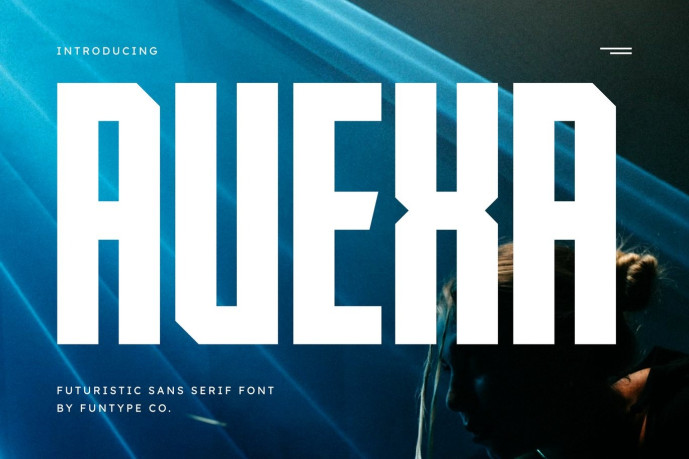
Avexa – Modern Futuristic Sans Serif Font
Avexa is a bold, high-impact, and modern futuristic condensed sans serif font, engineered to bring an authoritative structural presence, rigid geometric weight, and unique cybernetic aesthetic to contemporary display layouts. Featuring a tall vertical profile, powerful block structures, and distinct octagonal chamfered cuts, Avexa introduces a premium sci-fi editorial, high-end automotive, and prominent digital media identity designed to claim absolute visual focus.
This font family is the ultimate choice for creative directors, digital gaming publishers, and agency brand designers looking to implement a robust, space-efficient typography identity for major text hierarchies. Whether you are developing bold corporate enterprise logotypes, science fiction book layouts, tech-lifestyle branding, cinematic movie title sequences, automotive presentation headers, or prominent digital web banners, Avexa stands out with supreme clarity and structural confidence.
Main Features:
Modern Futuristic Condensed Structure: Optimized with a narrow horizontal footprint and tall tracking for solid, heavy, and high-impact title compositions.
Rigid Octagonal Geometry: Bold block lines with distinctive angular corner cuts crafted to secure instant audience attention.
Premium Sci-Fi Aesthetic: Clean linear strokes balanced with sharp structural definitions, perfect for cutting-edge corporate identities and digital gaming media networks.